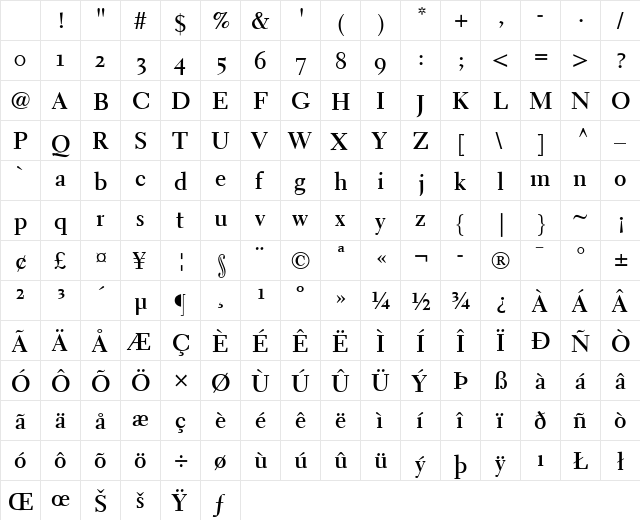
Electra LH RegularOsF is a composed and adaptable typeface that performs quietly and consistently across a wide range of design contexts. Its bold stroke weight gives it real presence on the page.